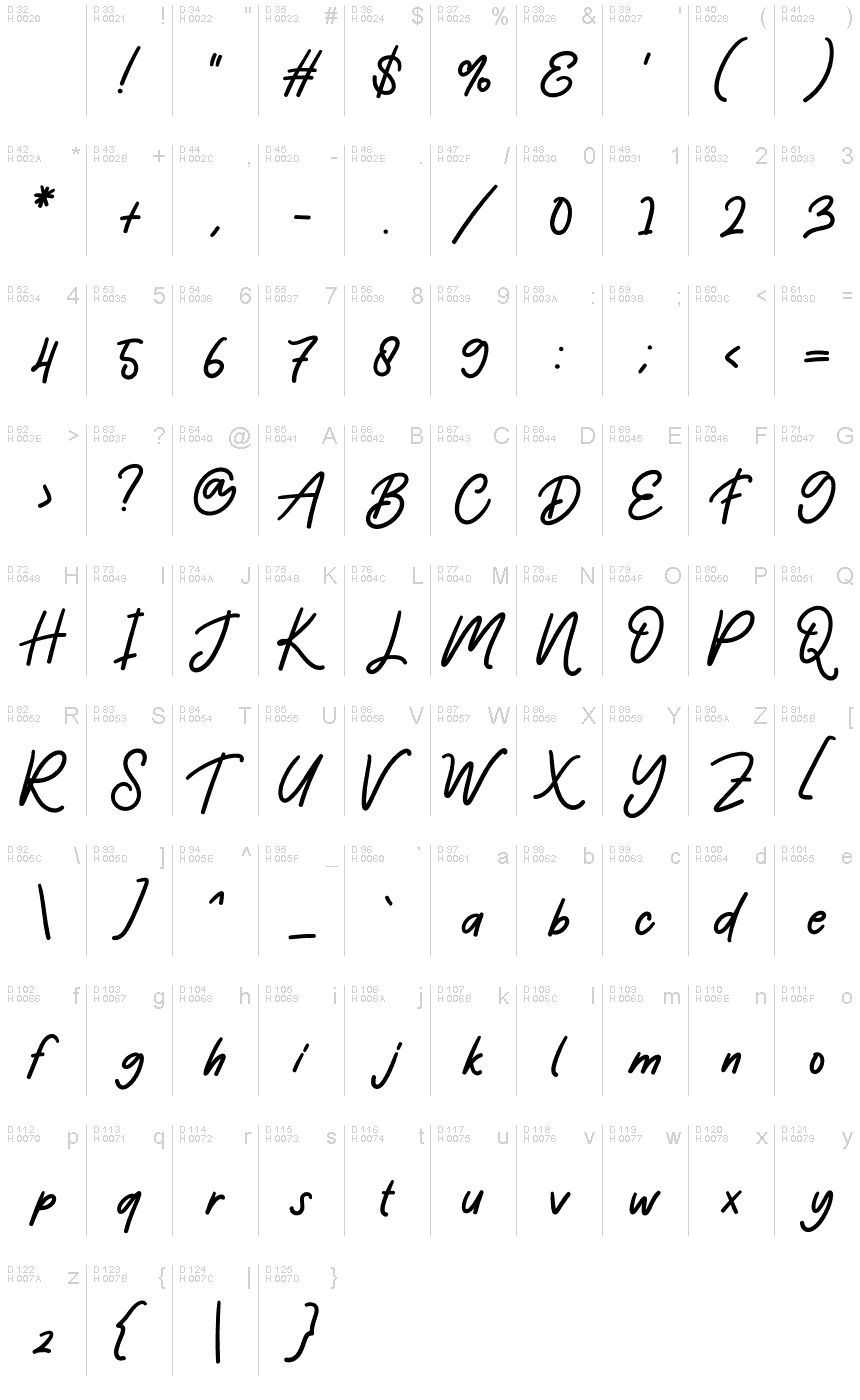
Grinlane
Grinlane, a charming semi-light handwritten font designed by scratchones, is perfect for adding a touch of personality to your design projects. It's versatile enough to be used in various projects such as wedding invitations, greeting cards, logos, and branding materials. The playful and casual feel of Grinlane makes it ideal for designs that require a personal touch. Its semi-light weight adds an airy feeling to any project without sacrificing readability. Whether you're creating digital or print media, Grinlane will add a unique flair that will make your designs stand out from the crowd.
the latest style letters are perfect for wall displays, wedding invitations, social media post logos, advertisements, product packaging, product designs, labels, photography, watermarks, invitations, stationery, and any project that requires taste handwriting.